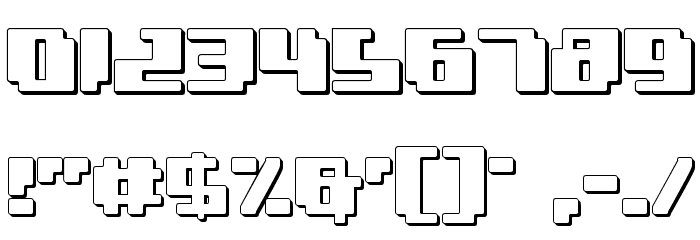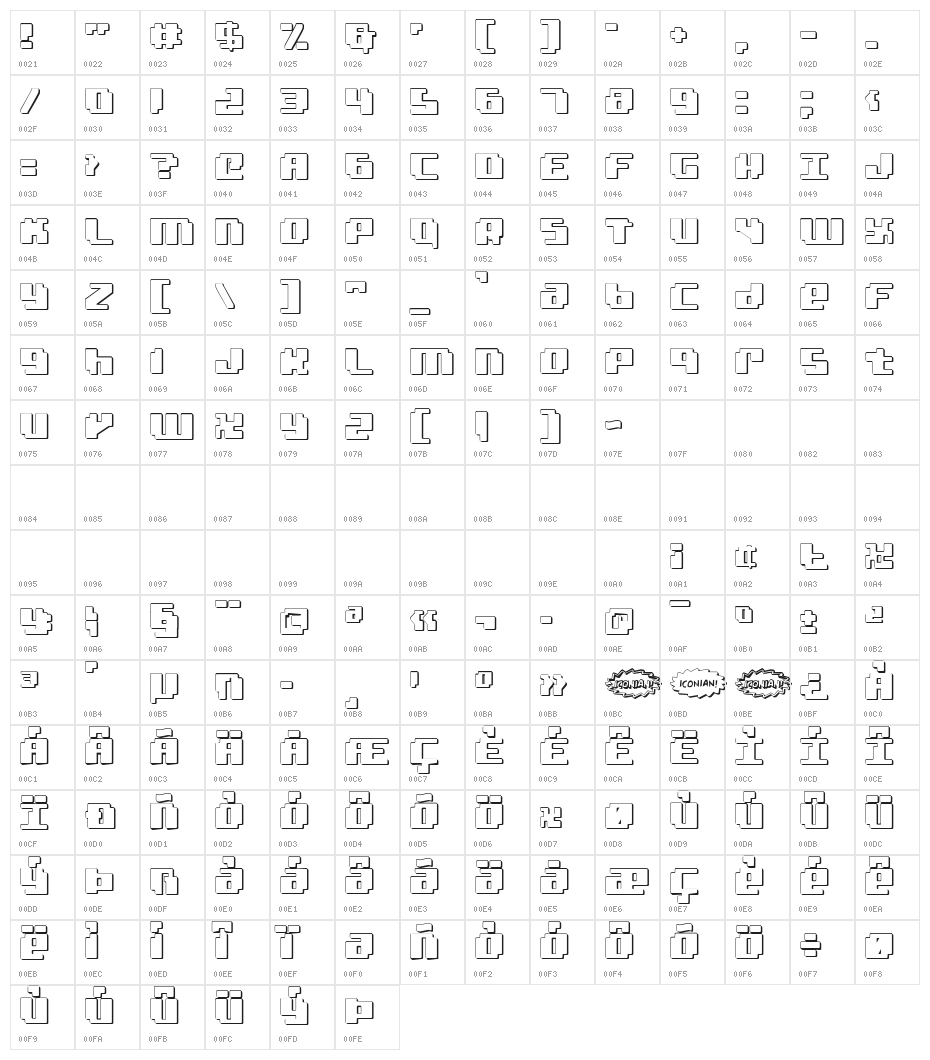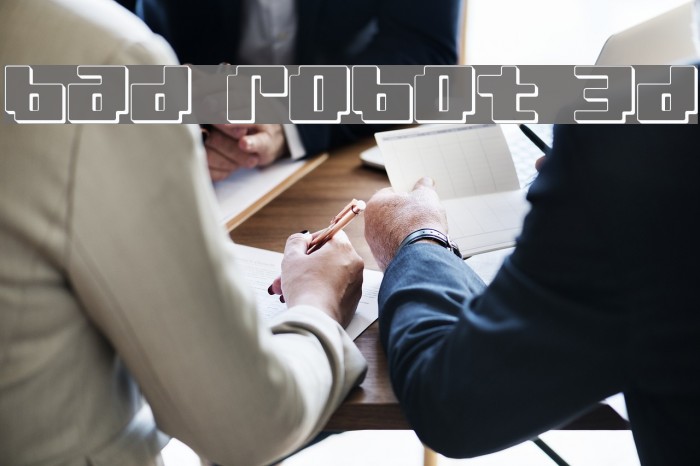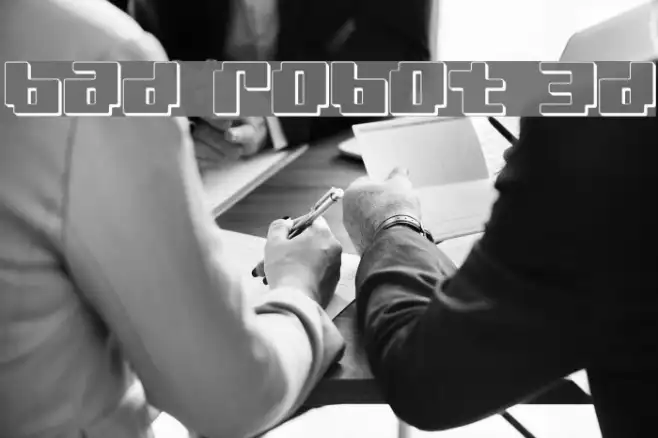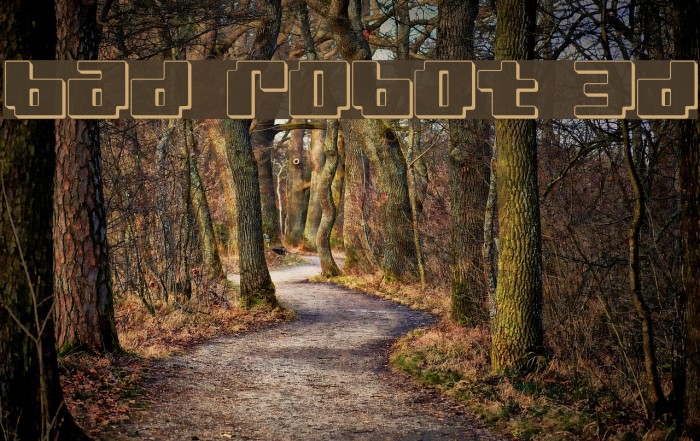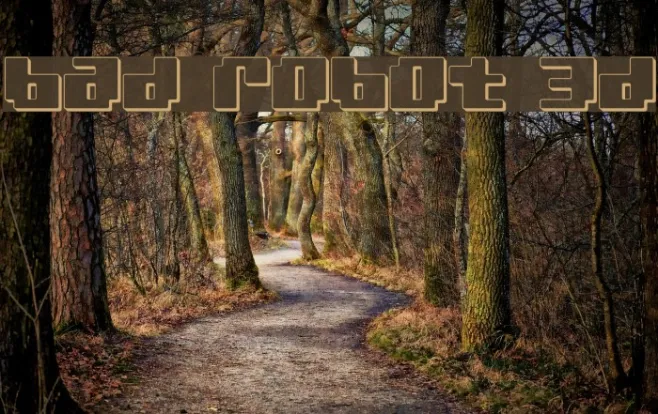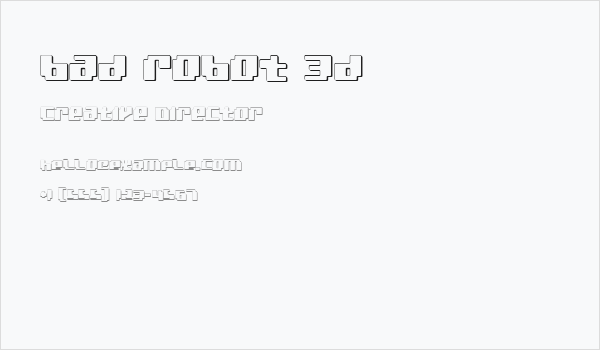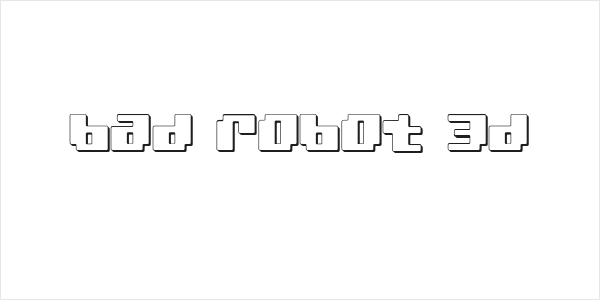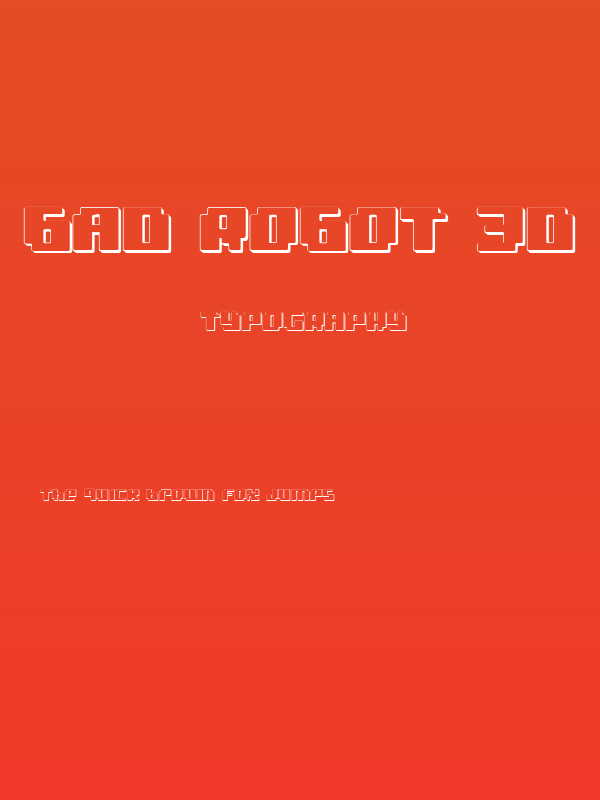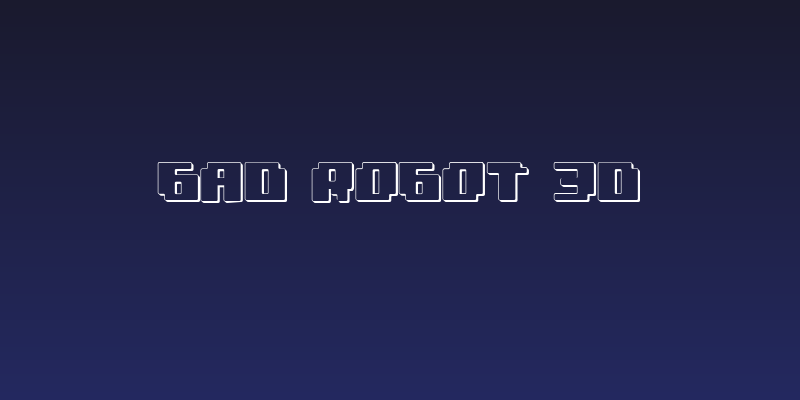
bad robot 3d Font
bad robot 3d Description
This font features a bold, geometric design with a three-dimensional effect, characterized by thick outlines and a blocky structure. The characters are uniformly shaped, giving a futuristic and robotic appearance. The uppercase and lowercase letters maintain a consistent width, enhancing the font's cohesive look. Numbers and special characters follow the same design principles, ensuring uniformity across all elements. The font's style is reminiscent of digital or arcade aesthetics, making it suitable for projects that require a modern and tech-savvy feel.
| Proposed Projects | Ideal for video game titles, tech-themed posters, futuristic branding, and digital interfaces. |